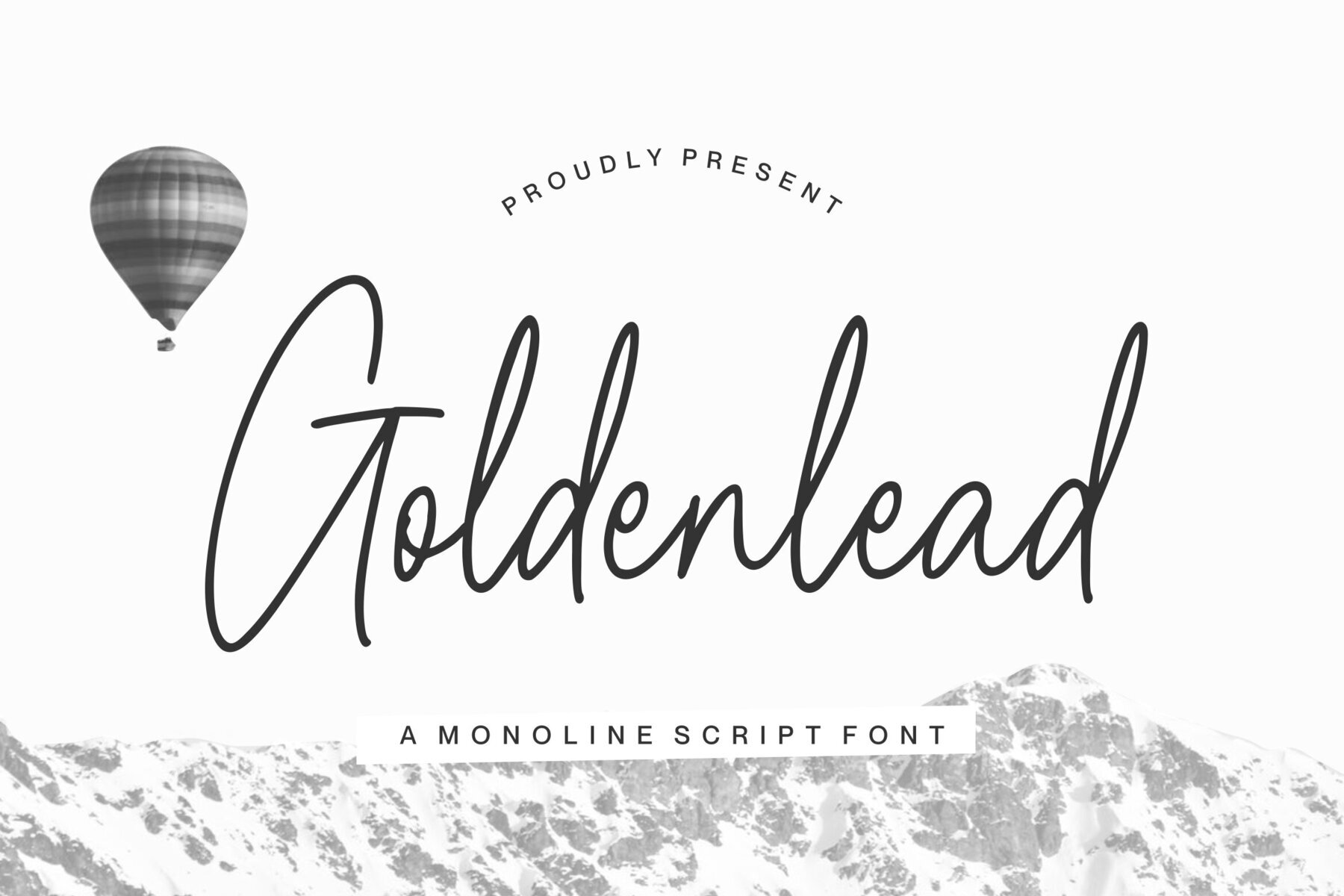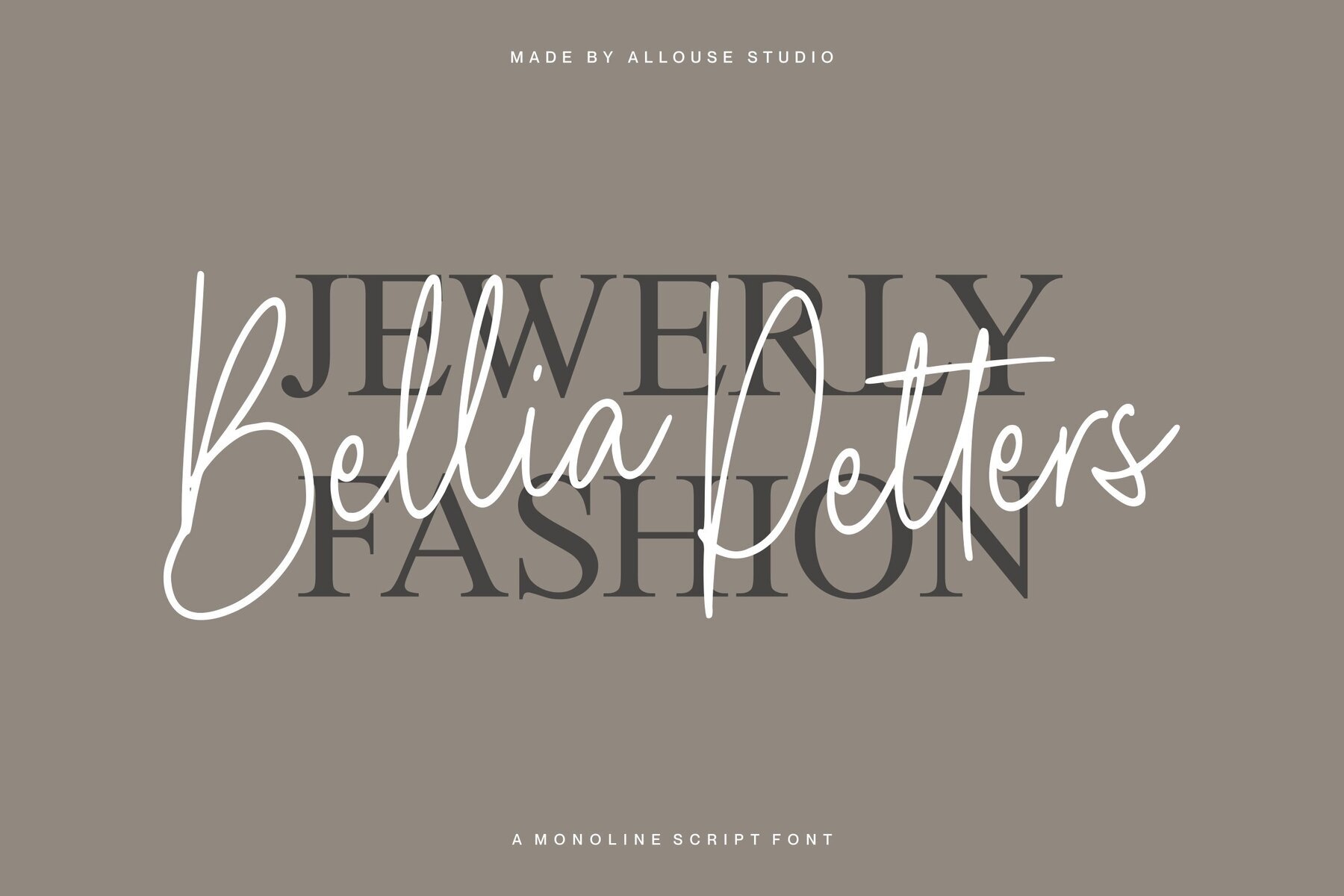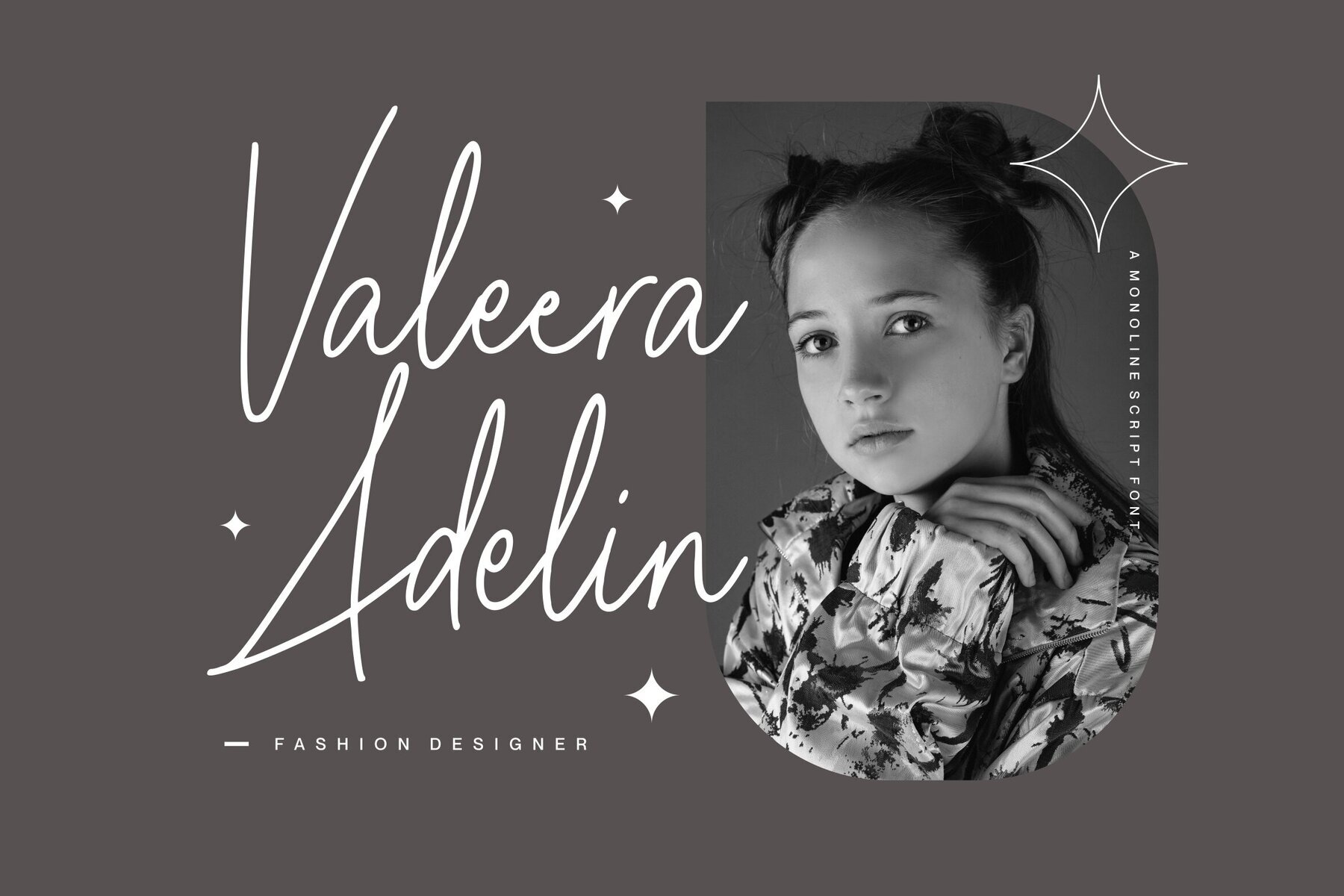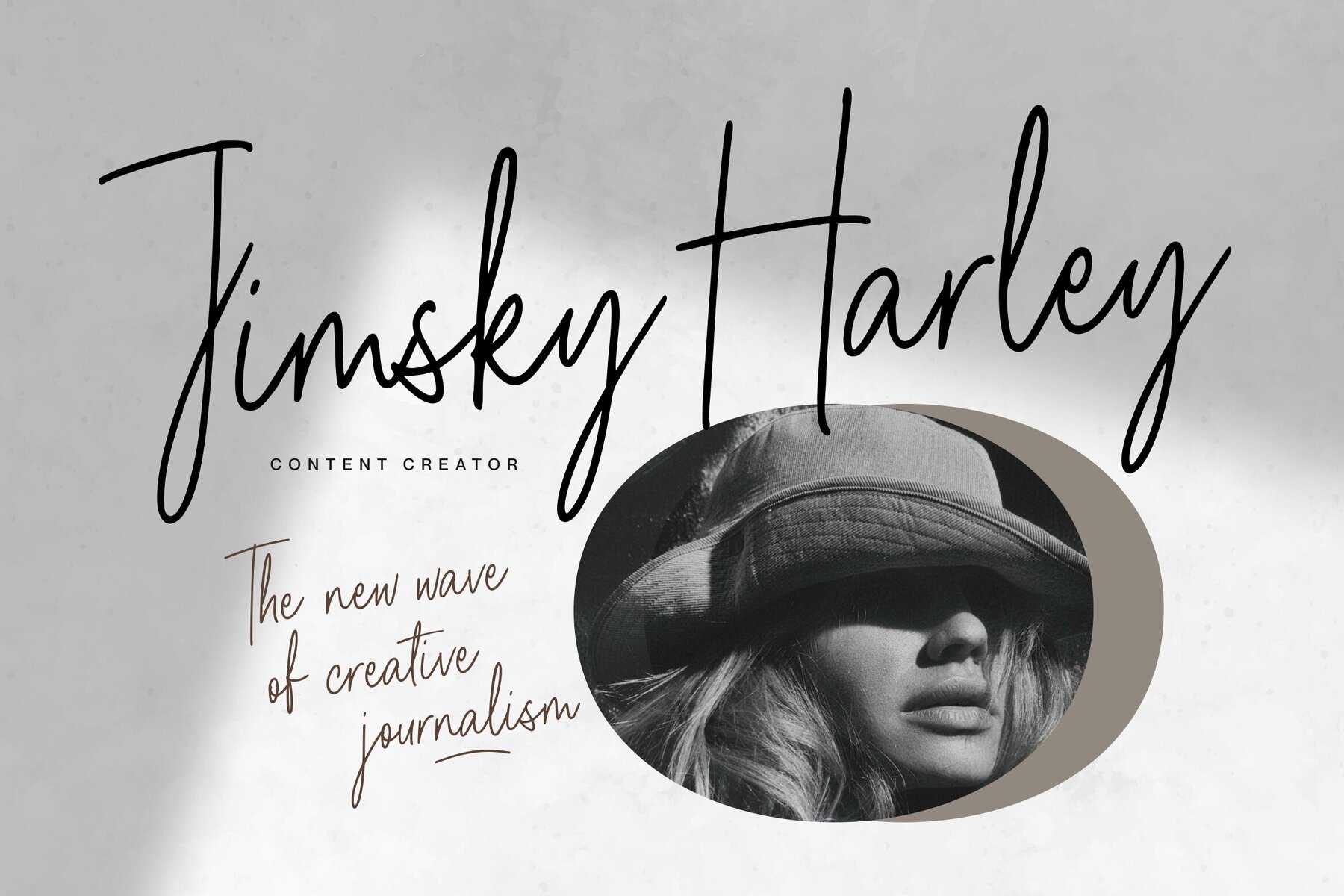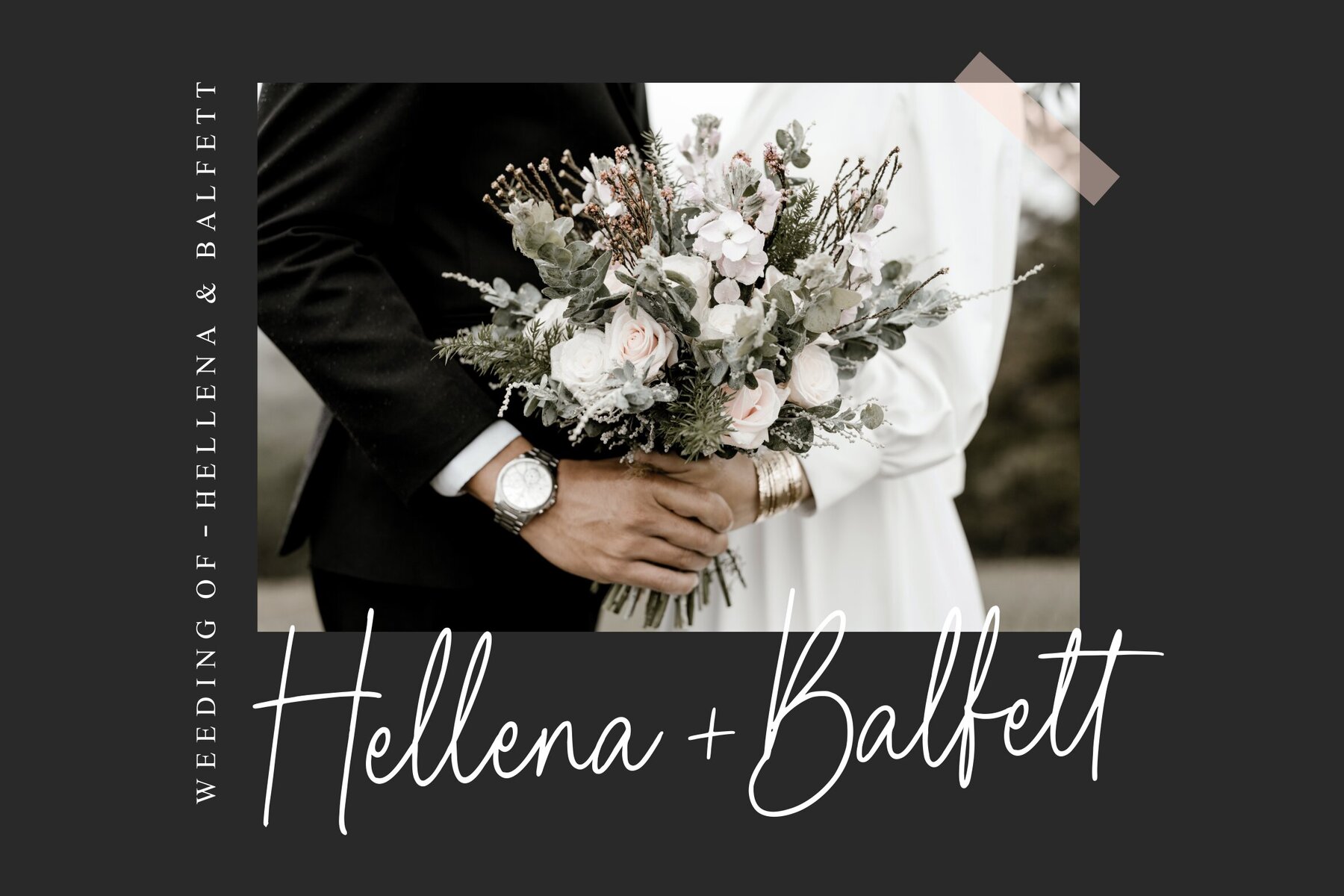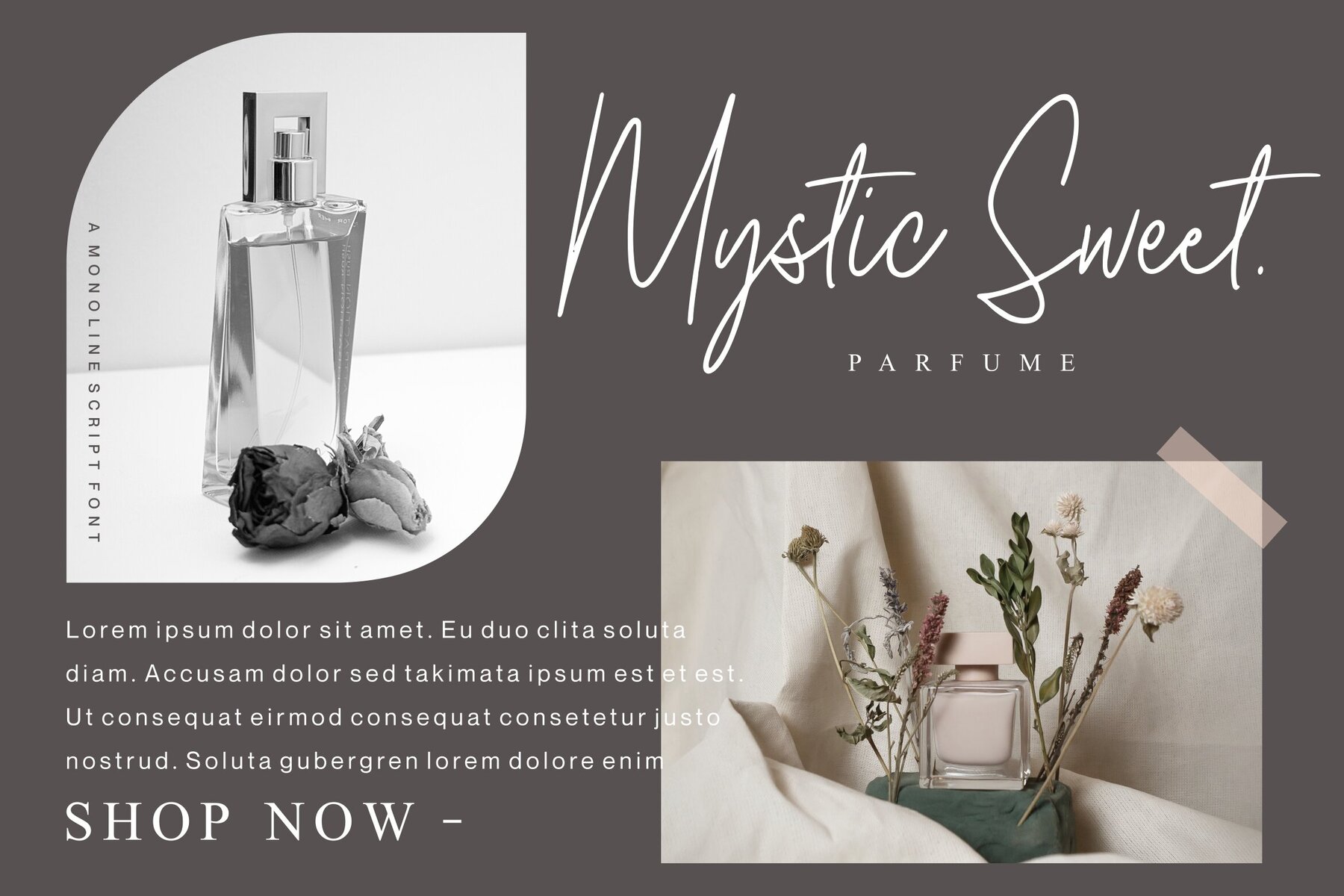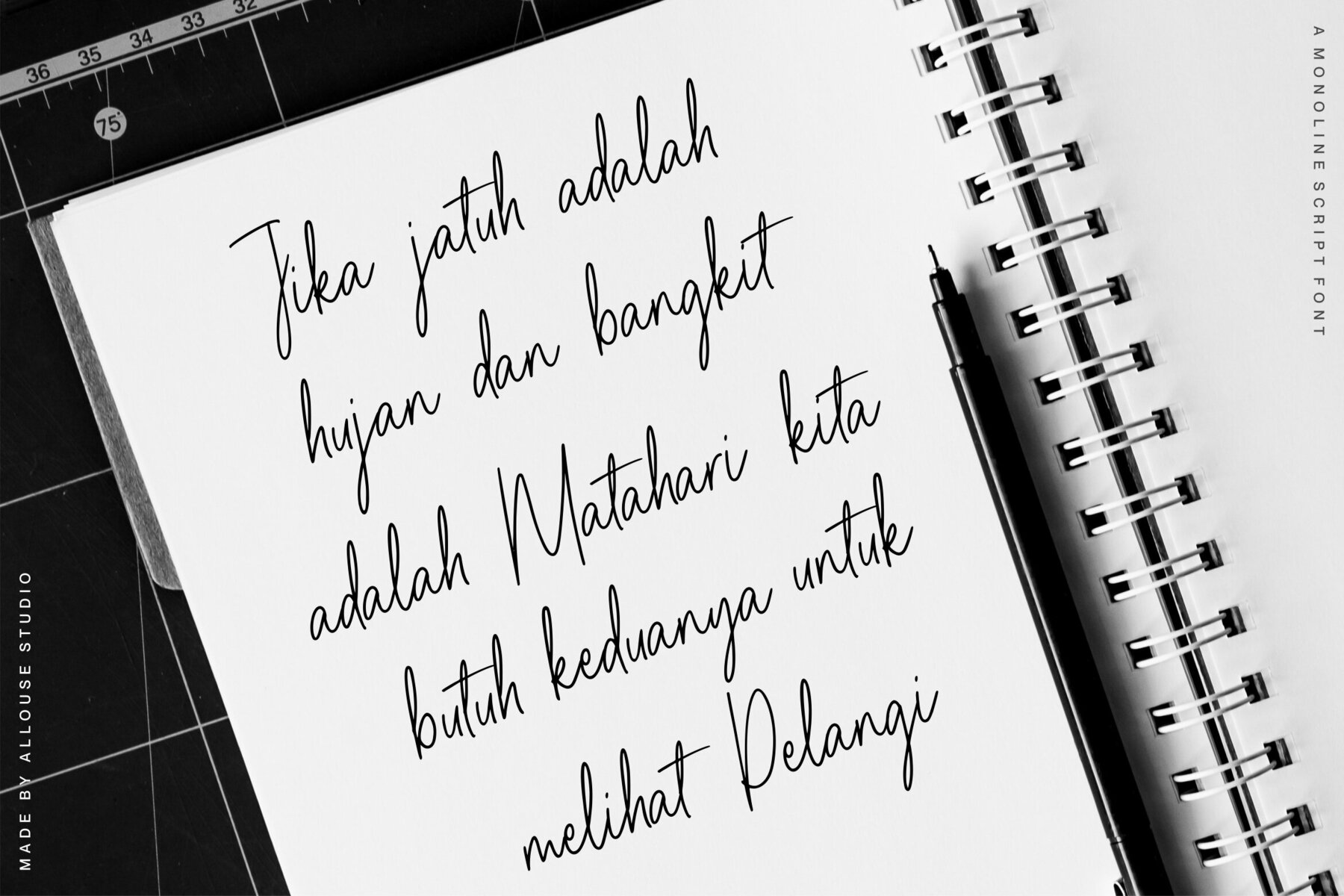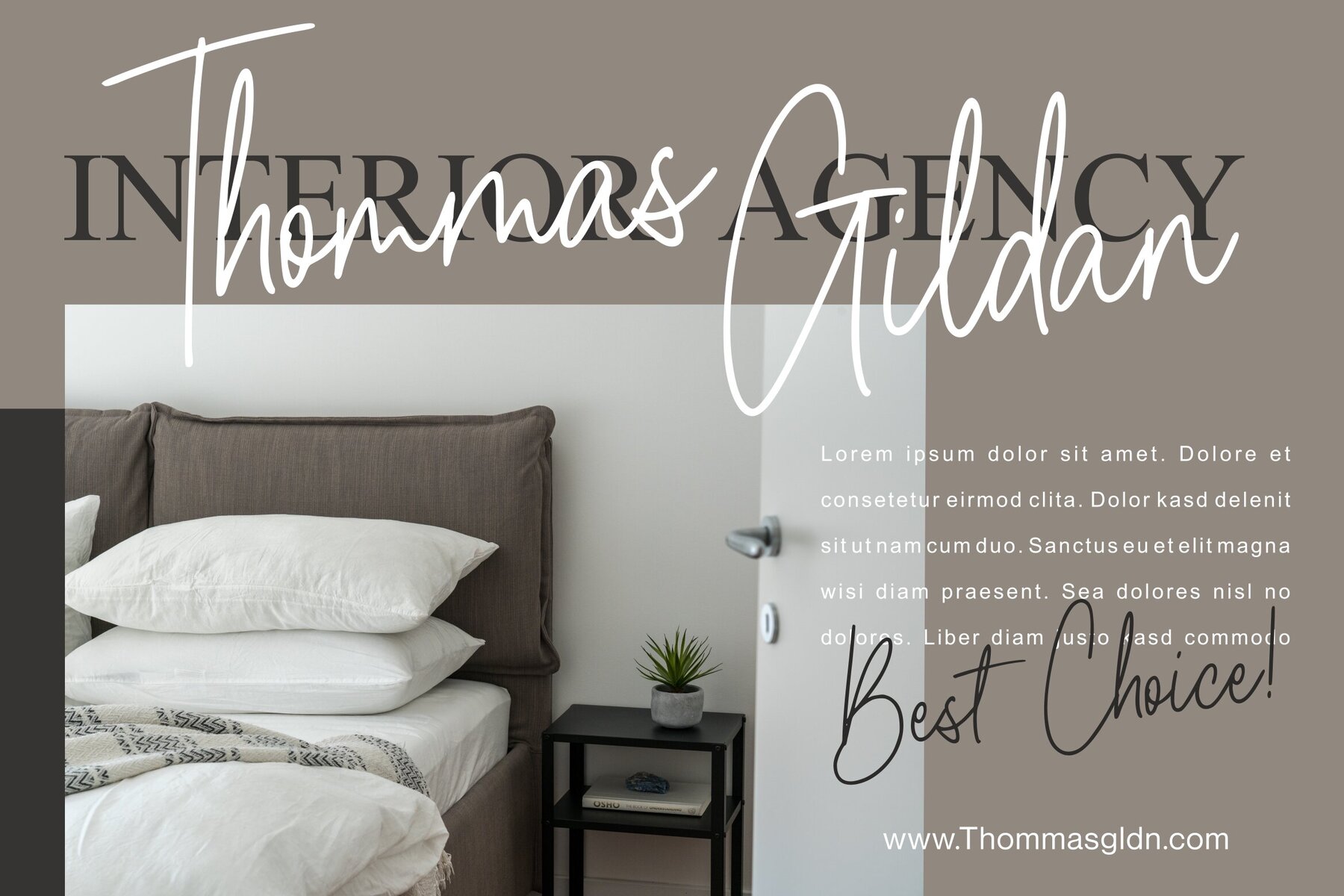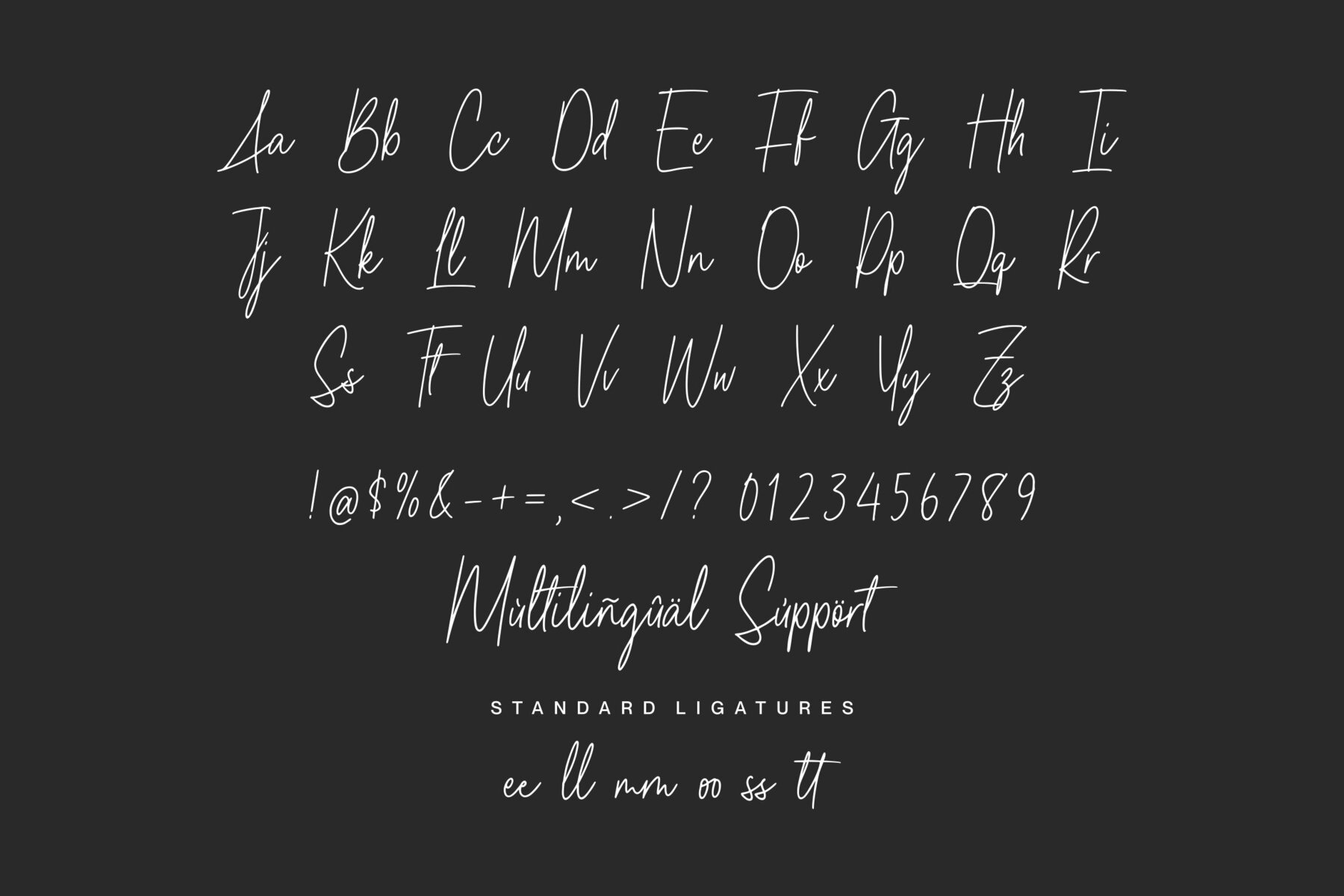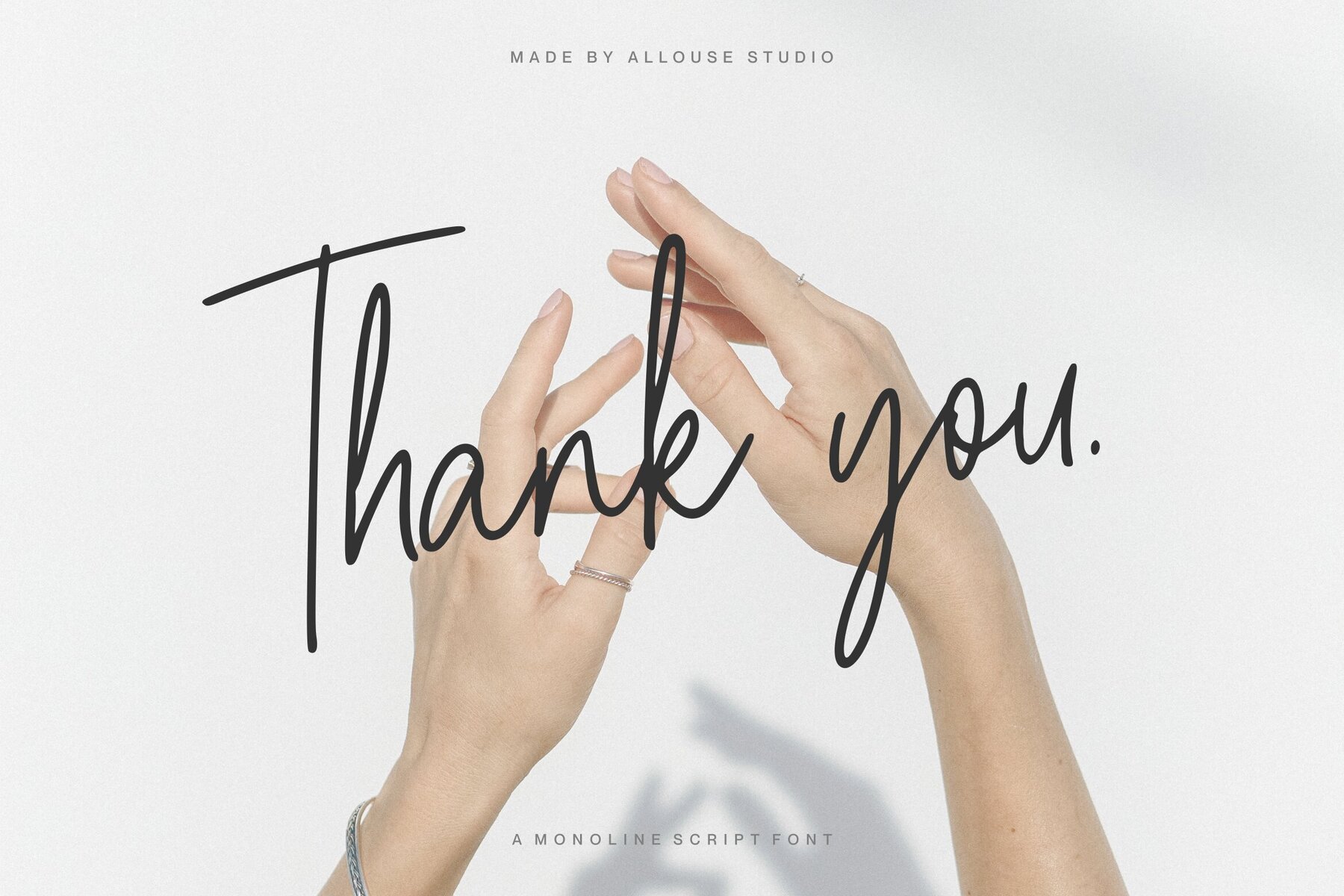
Goldenlead Font
Goldenlead
Goldenlead captivates with its adaptability, offering an ideal solution for product packaging, branding projects, and editorial designs. Its unique style adds character to social media posts and wedding invitations, harmonizing beautifully with diverse visual backgrounds.Goldenlead: A Versatile Typeface for Various Applications